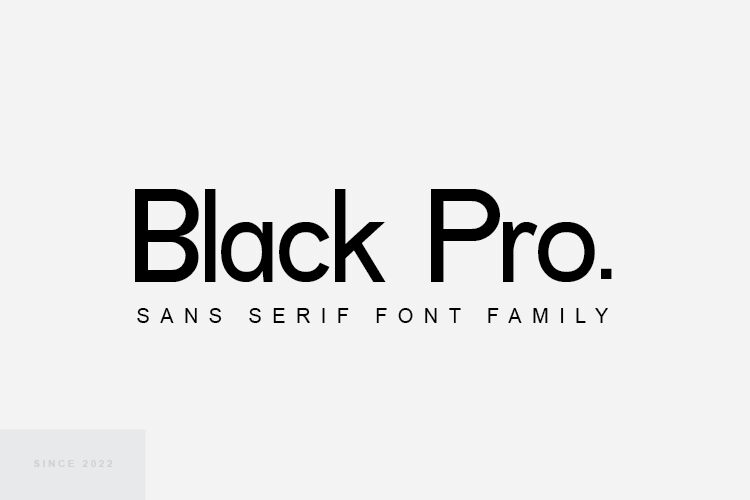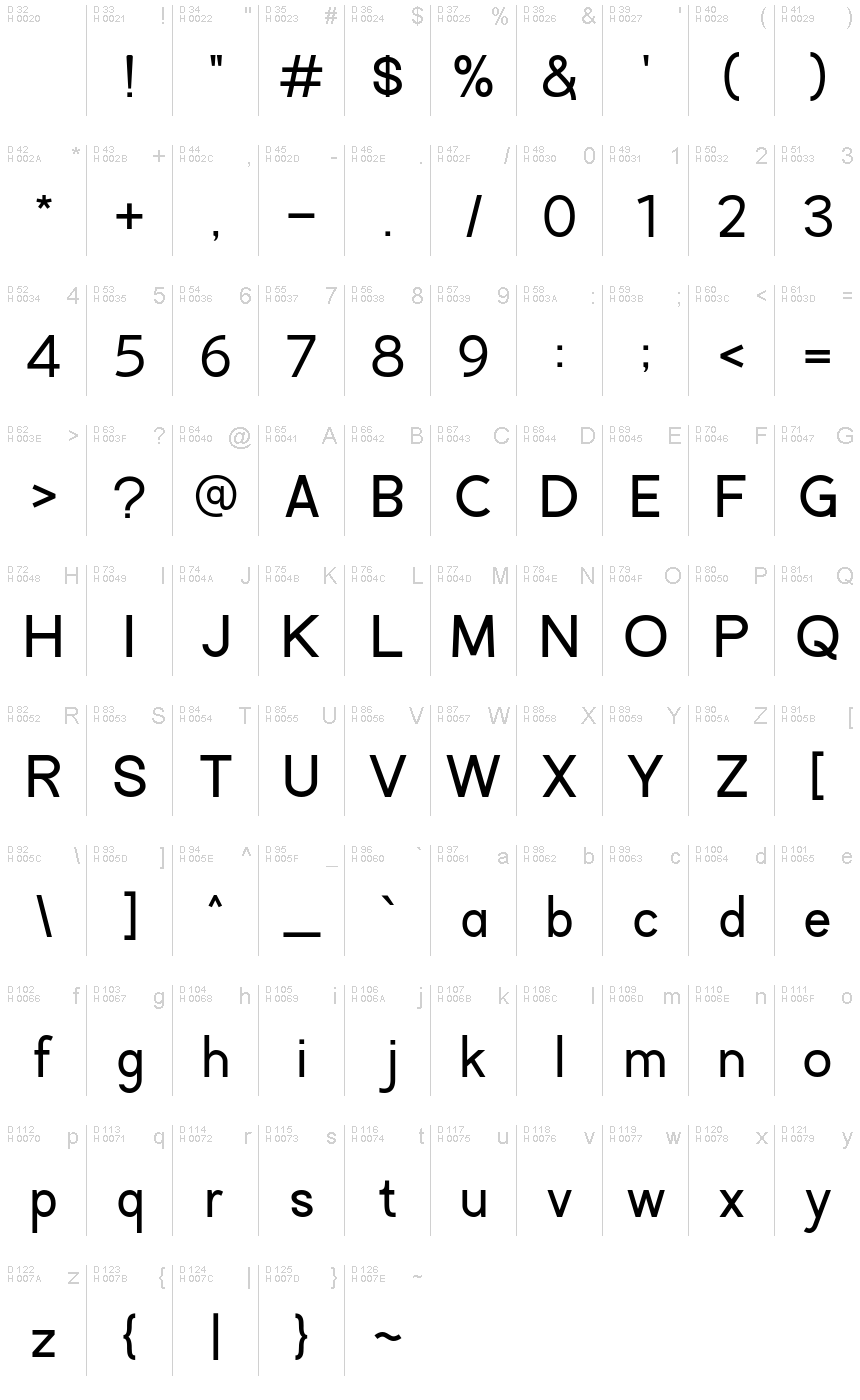
Black Pro
Black Pro, crafted by Rmdndsign, stands out with a bold sans serif design that commands attention. Its robust strokes and assertive presence bring an air of confidence to any textual composition. The characters exhibit a strong sense of modernity and sophistication, making it an excellent choice for brands seeking to convey reliability and professionalism.
The font's clean lines and uncluttered appearance lend themselves well to high-impact headlines and branding materials. Its legibility at various sizes also makes it suitable for both print and digital media, including advertising campaigns, editorial layouts, and corporate identity designs. Black Pro's versatility ensures it can meet the demands of diverse design projects that require a touch of elegance without compromising on clarity.